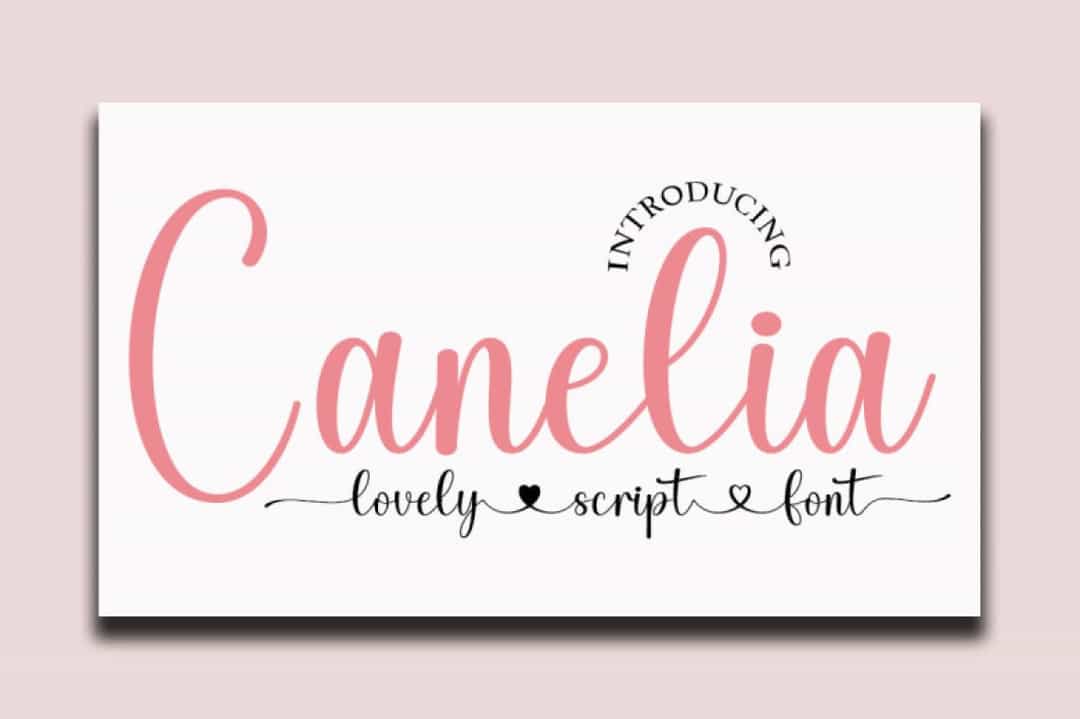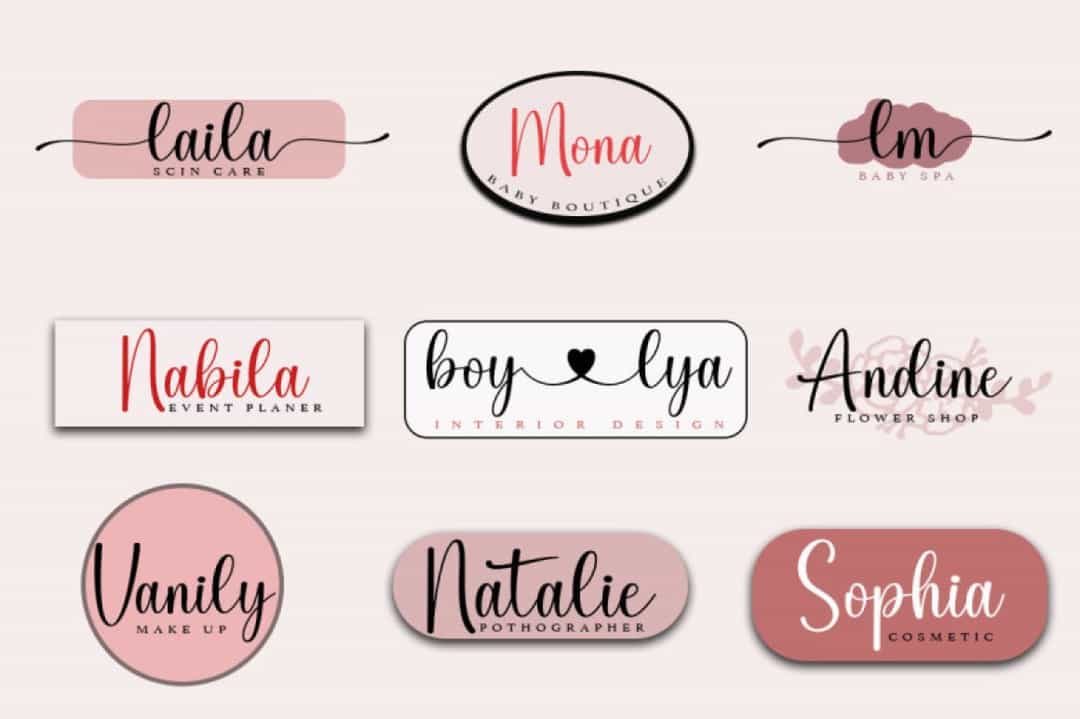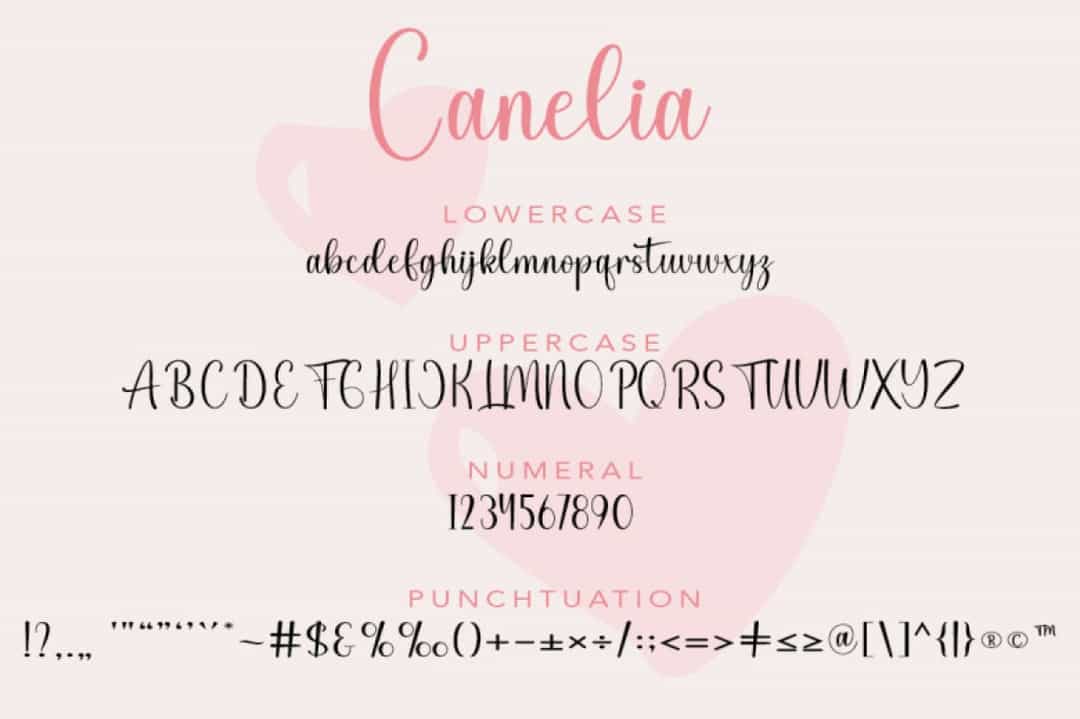
Canelia is an elegant and sophisticated calligraphy script font which exudes class. With its stylish alternates and ligatures, Canelia makes for the ideal addition to any design project. PUA encoded, Canelia allows access to all characters and strokes easily!